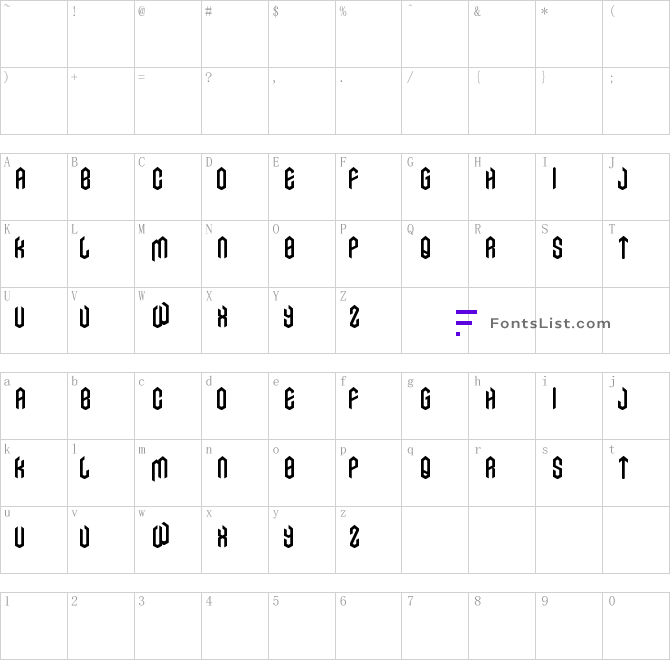
- Font Name:AXE
AXE.ttf is a very beautiful artistic font, AXE.ttf is widely used in the design and printing of various books and pictures,AXE.ttf has a strong visual impact,AXE.ttf is a commonly used font in newspapers, magazines and books, and is used in posters, e-commerce Poster design, store design, logo design, font design and other fields.AXE.